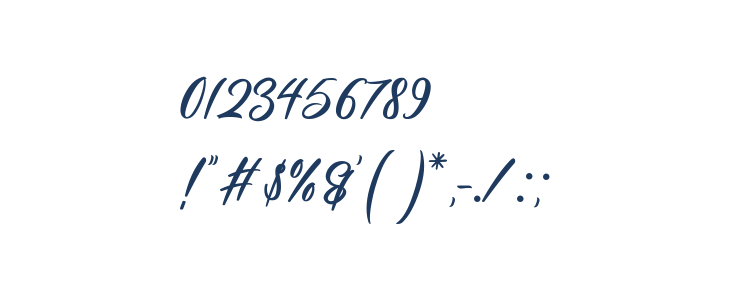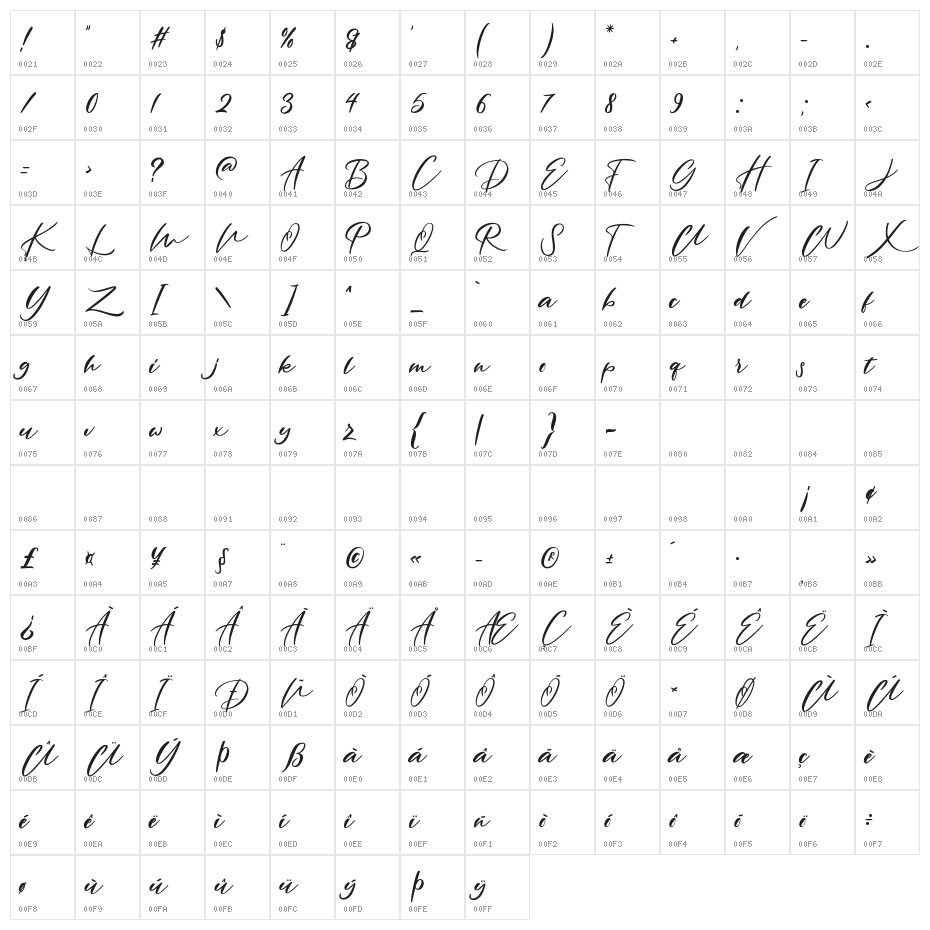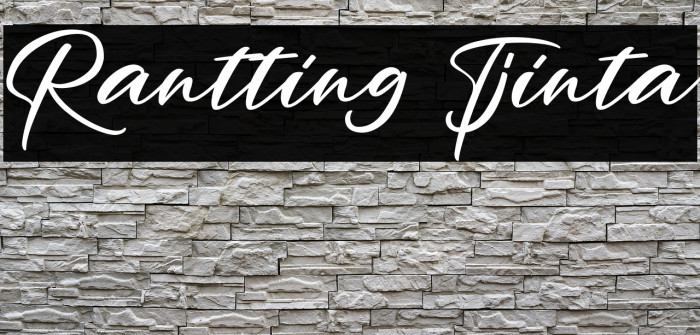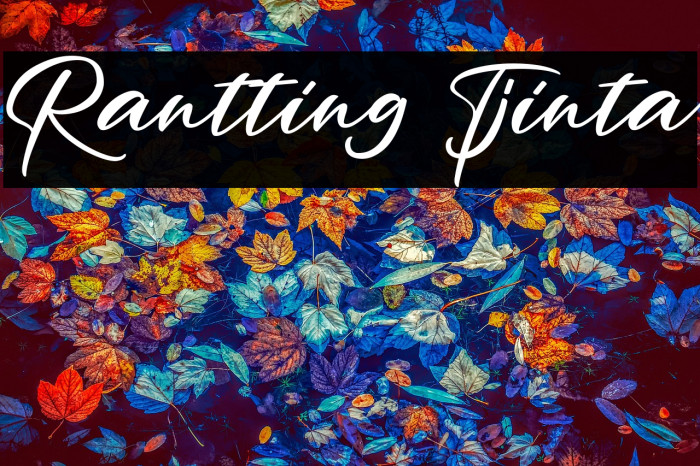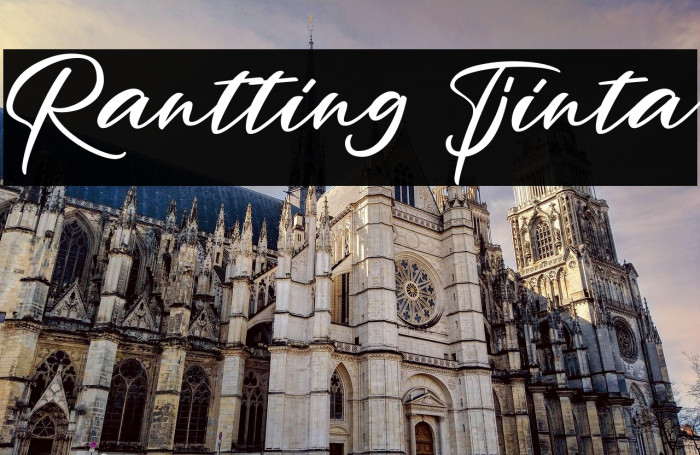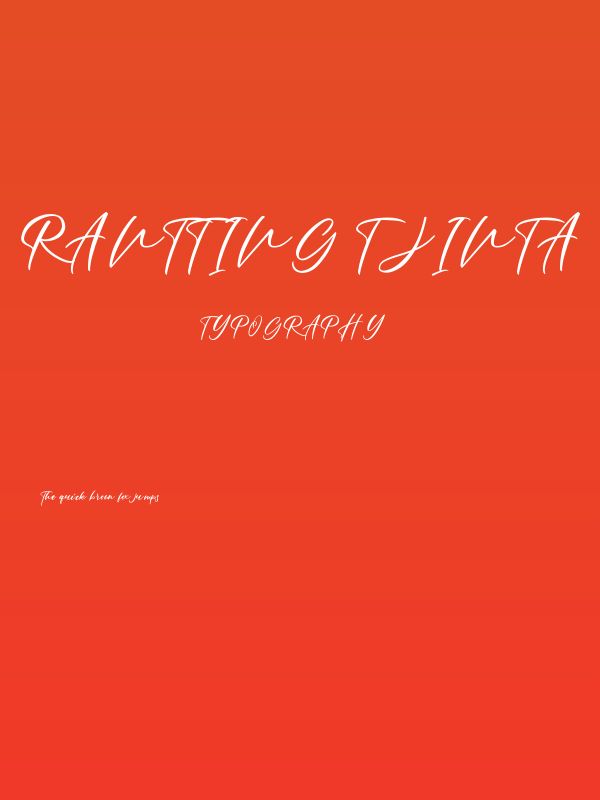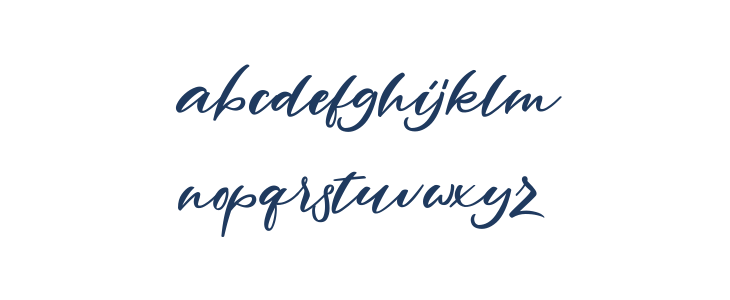
Rantting Tjinta Font
Rantting Tjinta Description
This font exhibits a dynamic and fluid script style, characterized by its elegant and flowing letterforms. The uppercase letters are slightly more formal, with a graceful, cursive appearance that maintains readability. The lowercase letters are more casual, with a smooth and connected style that enhances the overall fluidity. The numerals are consistent with the script style, offering a harmonious blend with the alphabet. Special characters are crafted with the same attention to detail, ensuring a cohesive look across all glyphs. This font is perfect for projects that require a touch of elegance and sophistication.
| Overall Style | Elegant |
| Use Case | Logos, Invitations, Decorative text |
| Proposed Projects | Ideal for wedding invitations, greeting cards, branding, and elegant packaging designs. |